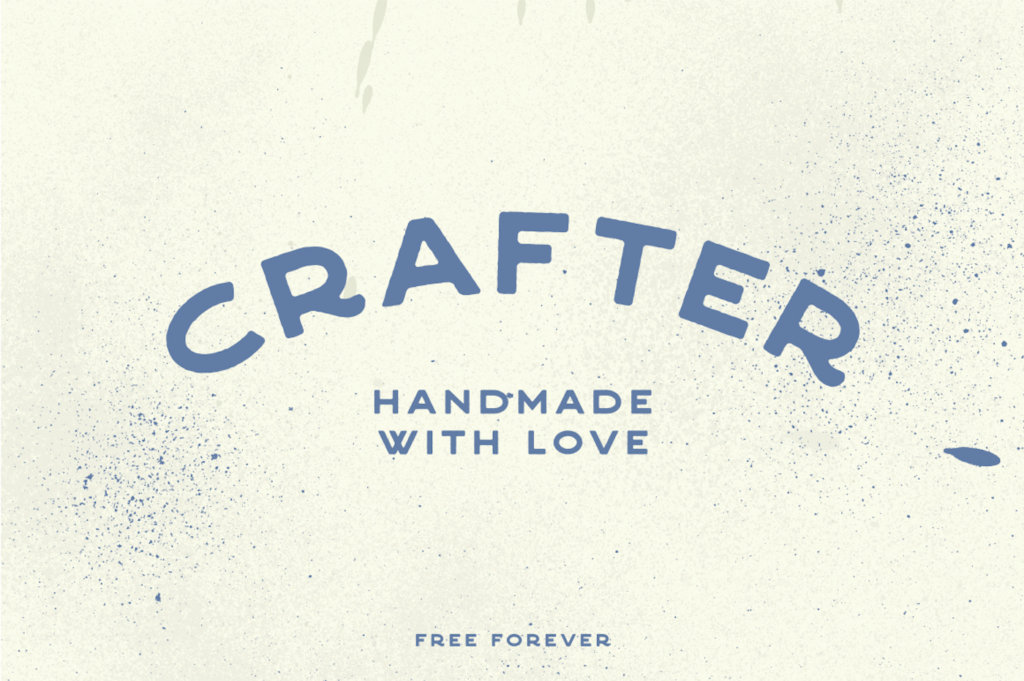
Crafter is a brand new versatile handmade sans-serif font from 1871 Project! It takes inspiration from vintage metal signs as well as sign painters, and it’s perfect for your next project. Use it in logos, t-shirts, posters, social media, or literally anything else (probably not in paragraphs though.)